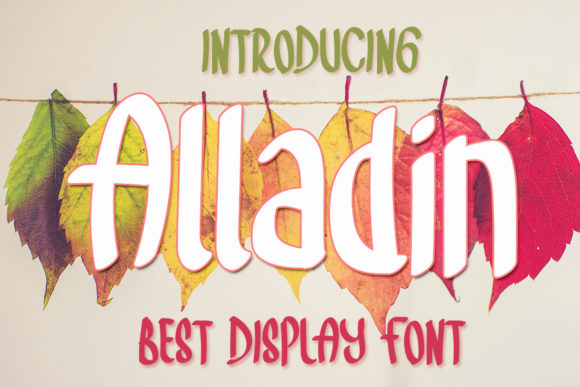
Journey to a World of Enchantment with Alladin Font: A Captivating Display Font for Creative Visionaries
In a realm where imagination reigns supreme, where creativity blossoms like a thousand vibrant flowers, there exists a font that captures the essence of joy and wonder. Alladin Font, a delightful display font, stands as a testament to the boundless power of imagination, inviting you to embark on an extraordinary creative odyssey.
Alladin Font: A Symphony of Visual Delight
With its whimsical curves and enchanting glyphs, Alladin Font dances across the digital canvas, leaving a trail of visual delight in its wake. Each letter, crafted with meticulous care, exudes a sense of playfulness and charm, beckoning you to explore the limitless possibilities of creativity.
From playful invitations to captivating social media posts, Alladin Font weaves its magic, transforming ordinary words into captivating works of art. Its playful nature lends itself perfectly to children's books, greeting cards, and whimsical illustrations, where it brings to life enchanting characters and magical worlds.
Unleash Your Creativity with Alladin Font
Alladin Font is a versatile tool for designers seeking to add a touch of whimsy and enchantment to their projects. It effortlessly complements a wide range of design styles, from retro and vintage to modern and contemporary, seamlessly blending with your creative vision.
This remarkable font is a must-have for graphic designers, illustrators, and creative professionals of all stripes. Its ability to captivate and engage audiences makes it an invaluable asset in marketing and advertising, where it commands attention and leaves a lasting impression.
Experience the Alladin Font Difference
Indulge in the sheer joy of creating with Alladin Font, where imagination knows no bounds. Let your creativity soar as you explore the infinite possibilities this enchanting font presents. Discover a world of beauty, wonder, and endless creative possibilities.
Embrace the magic of Alladin Font today and embark on a creative journey that will leave you spellbound.